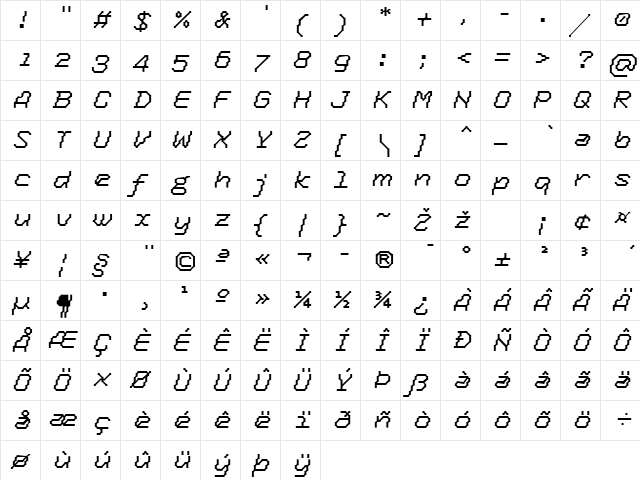
Tronic-RegularItalic Regular
| Foundry | Hyun Cho, Sung Min Choi; published by FontShop International for the FontFont Library |
| Designer | Hyun Cho, Sung Min Choi |
Design Context for Tronic-RegularItalic Typeface
Tronic-RegularItalic is a composed and adaptable typeface that performs quietly and consistently across a wide range of design contexts. The dynamic lean of this cut emphasises speed and emphasis in any layout.
Pro Tip: Use Tronic-RegularItalic for emphasis, pull quotes, and subheadings where its slanted energy can add rhythm to the layout.